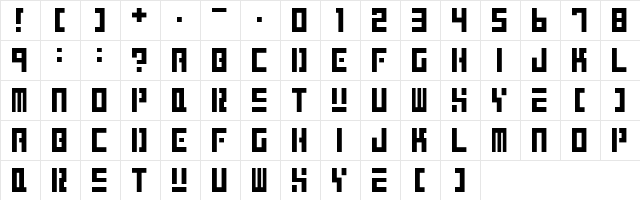
KoukakuE Regular
Design Context for KoukakuE Typeface
KoukakuE offers clean, dependable letterforms without strong stylistic allegiance, making it a practical choice for designers who need flexibility.